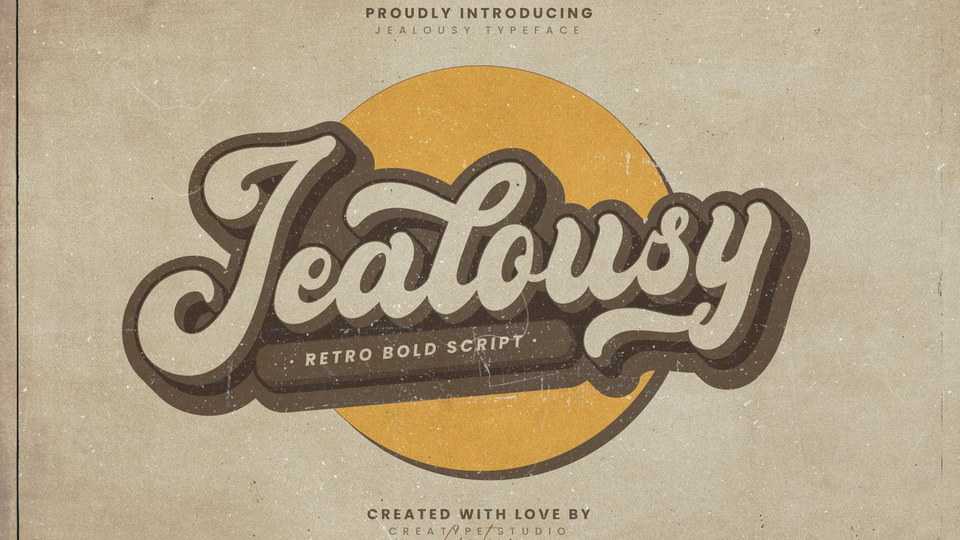
Download Jealousy font, a bold retro script typeface that takes inspiration from 60s to 80s lettering. Jealousy is perfect for branding projects, logo, social media, ads, packaging, labels and any projects that need handwriting taste.